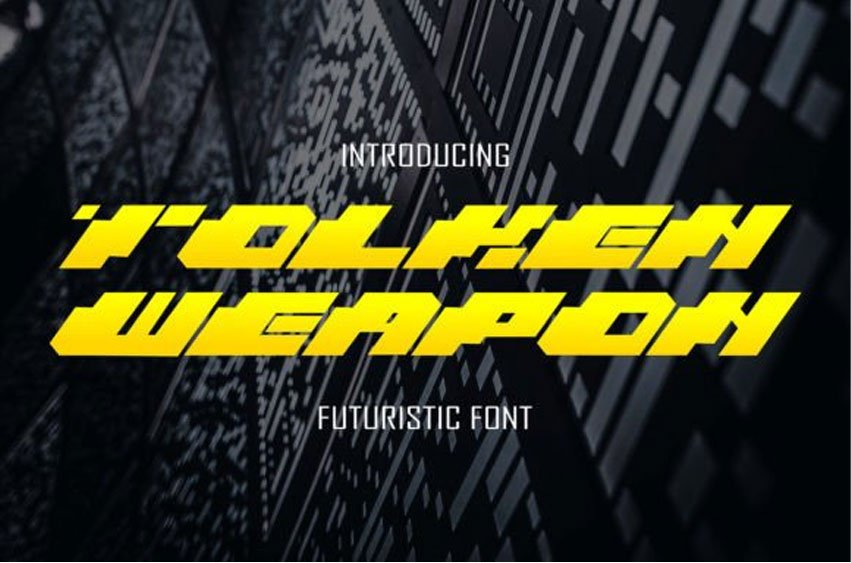
Tolken Weapon Font is a powerful racing theme font. The display font is ready for racing sports or automotive-related projects.
This lovely font is perfect for headlines, jerseys, logos, car decals, helmet decals, stickers, branding, posters, packaging, advertising, and more.